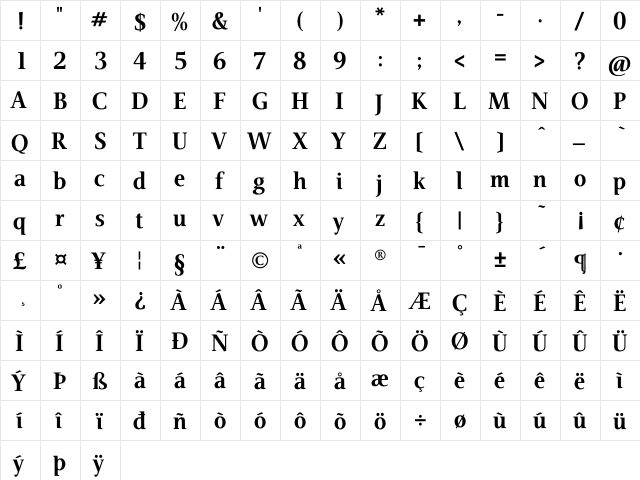
AIVeritas Bold
Design Context for AIVeritas Typeface
AIVeritas offers clean, dependable letterforms without strong stylistic allegiance, making it a practical choice for designers who need flexibility. The heavy weight commands attention and anchors typographic hierarchies.